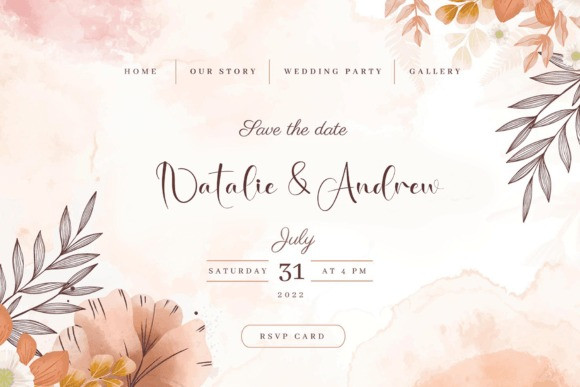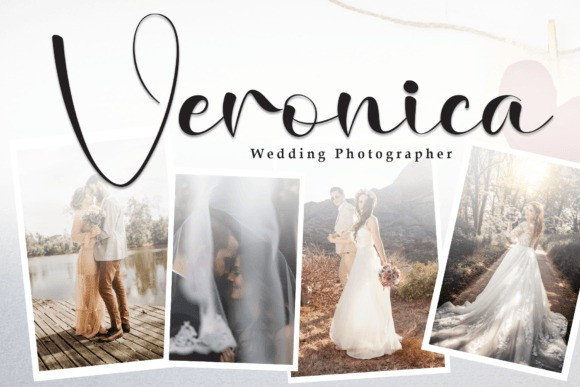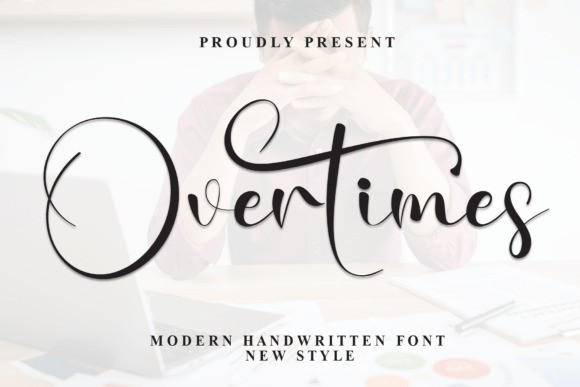
Overtimes Script Font
Overtimes Script Font is a stylish handwritten font that features a mix of bold and thin lines. Its unique design gives it a casual and artistic feel, making it great for personal projects, invitations, and creative displays!